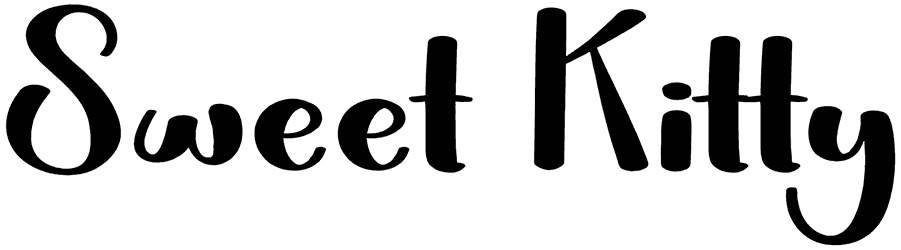
Sweet Kitty Font
Setting this cute font on your novel design’s text will provide it with an adorable and smooth vibe. The Sweet Kitty font includes playful and natural characters. From a poster for kindergarten to a toy shop sign, you can count on this kids font to leave a lasting impression on your visitors and reveal your unique taste.
Sweet Kitty is a playful script font carefully created with a touch of magic. Whether you’re looking for fonts for Instagram or calligraphy scripts for DIY projects, this font will turn any creative idea into a true piece of art!